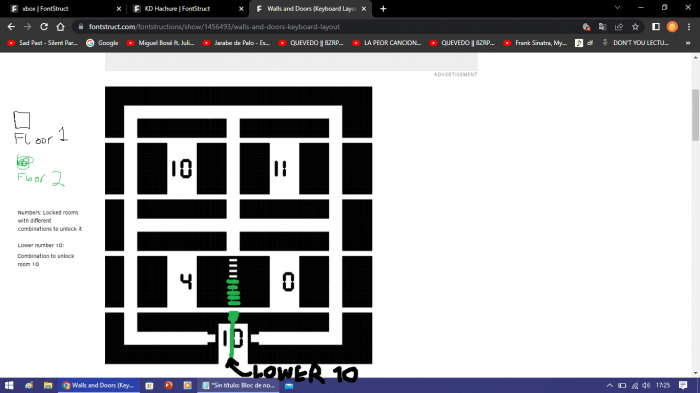
• Simply Walls and Doors from jonrgrover with a different layout that matches a QWERTY keyboard.
QAZ = Walls (for closing doors)
WER/SF/XCV/! = Rooms with Doors
GHJ/BNM/D/12/36/98/74 = Hallways
TYUIOPKL = Numbers (for item keys or, according to me, floor numberings)
., = Stairs
5/0/;/:/# = Special Rooms
//*/? = Special Hallways
space = Space